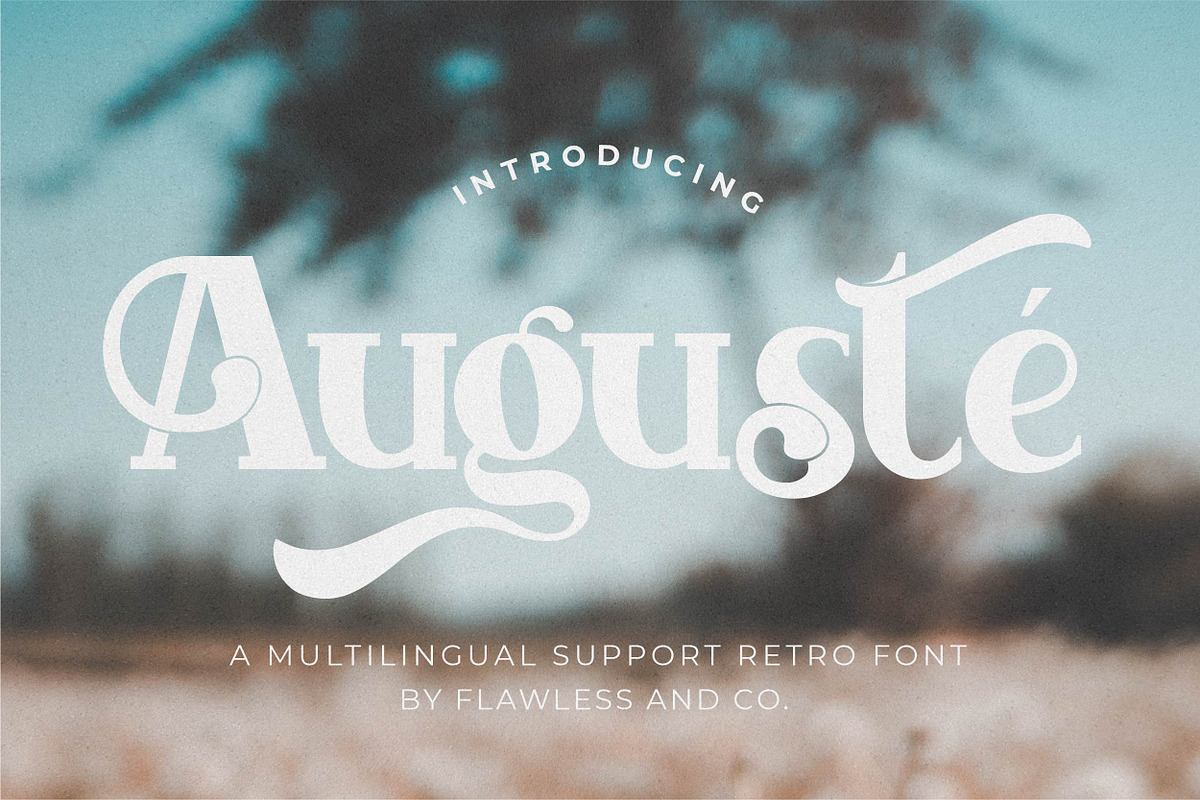
Auguste Font Free Download is a refined and luxurious serif typeface designed to bring elegance and high-end appeal to your creative projects. Its stylish curves, sharp serifs, and classic proportions make it a top choice for branding, magazine headlines, fashion editorials, and upscale product packaging. Whether you're designing for print or digital platforms, Auguste delivers a timeless and professional look.
This font stands out with its graceful contrast and modern twist on traditional serif design. If you're aiming to convey sophistication and premium quality, Auguste Font Free Download is an excellent addition to your font toolkit. It's perfect for designers who value both aesthetics and functionality in their typography.